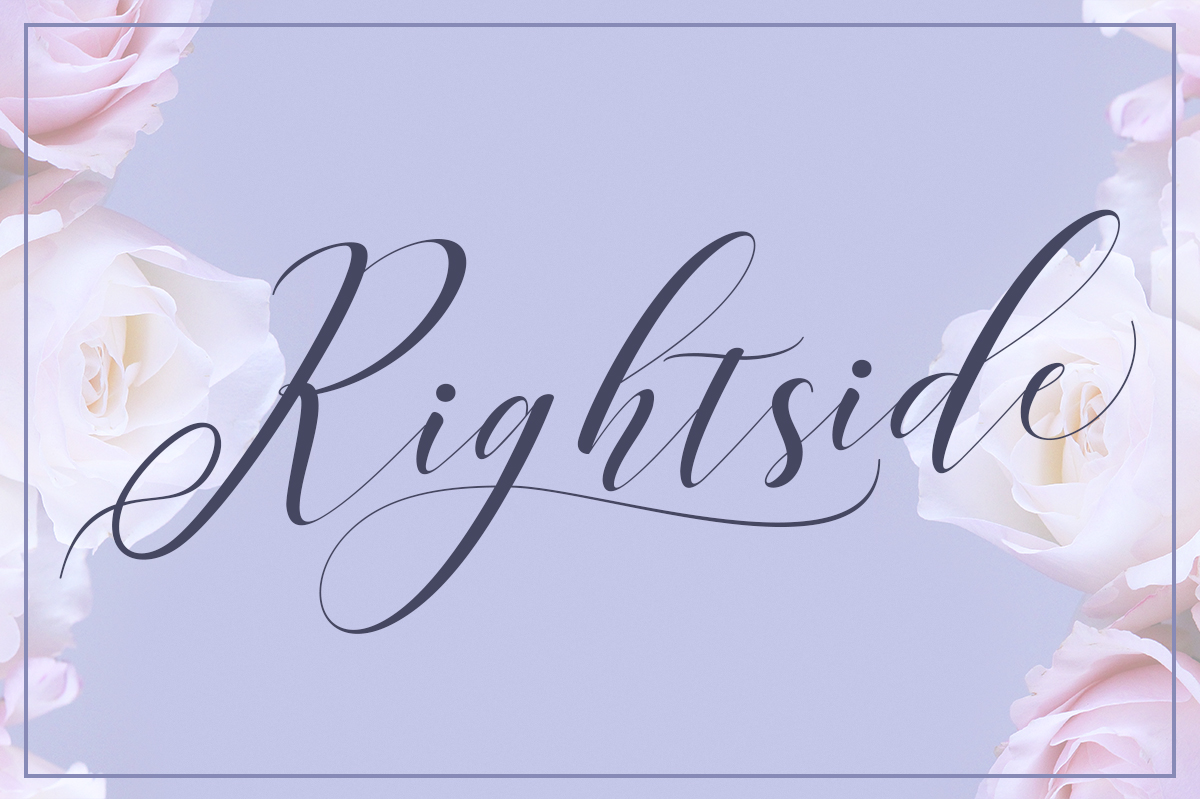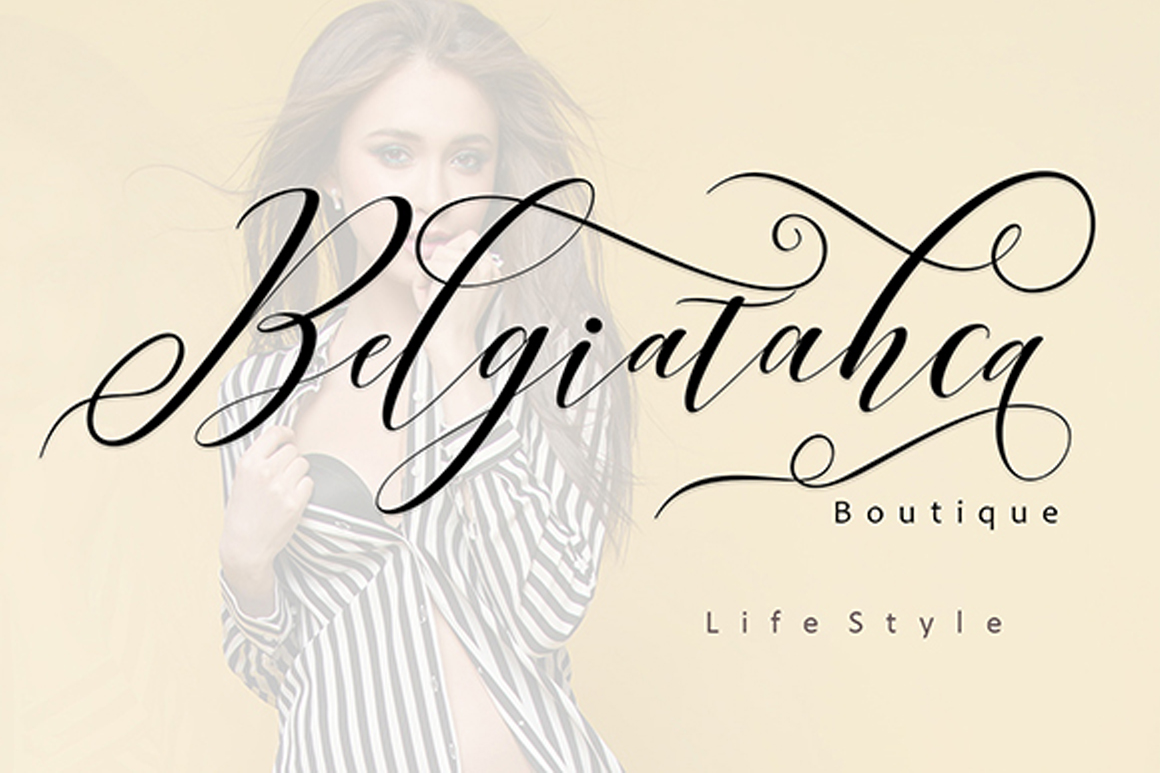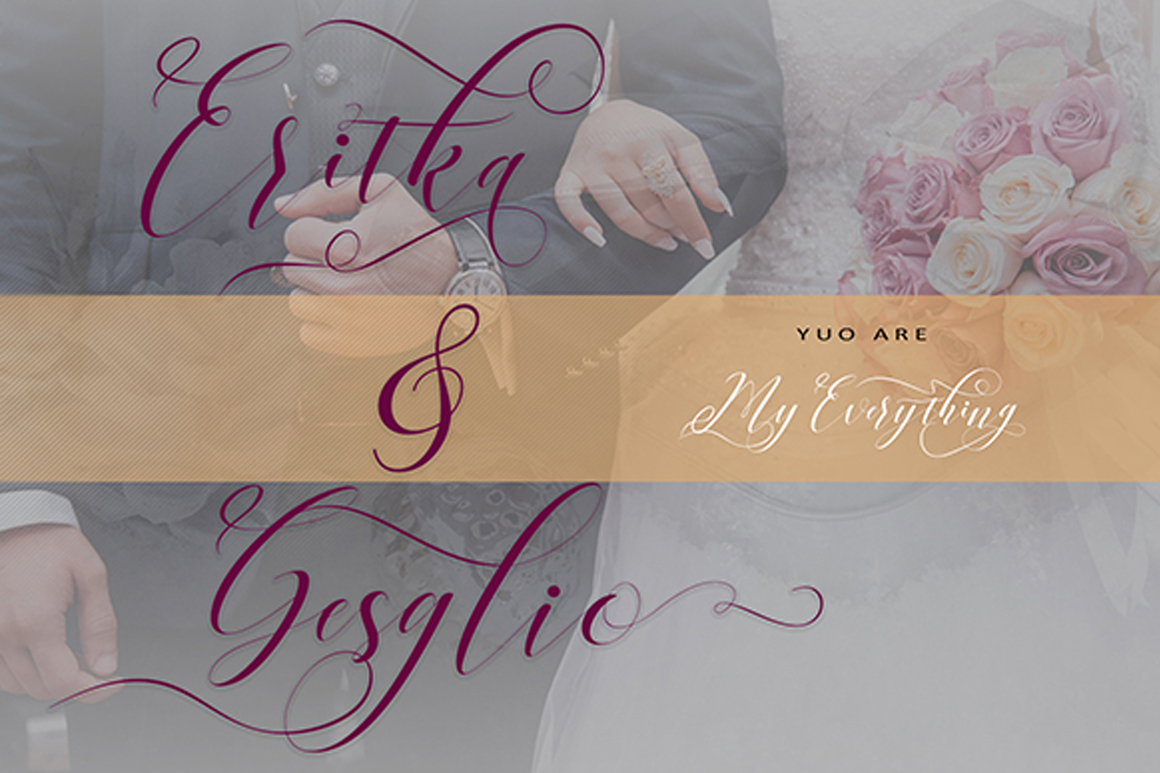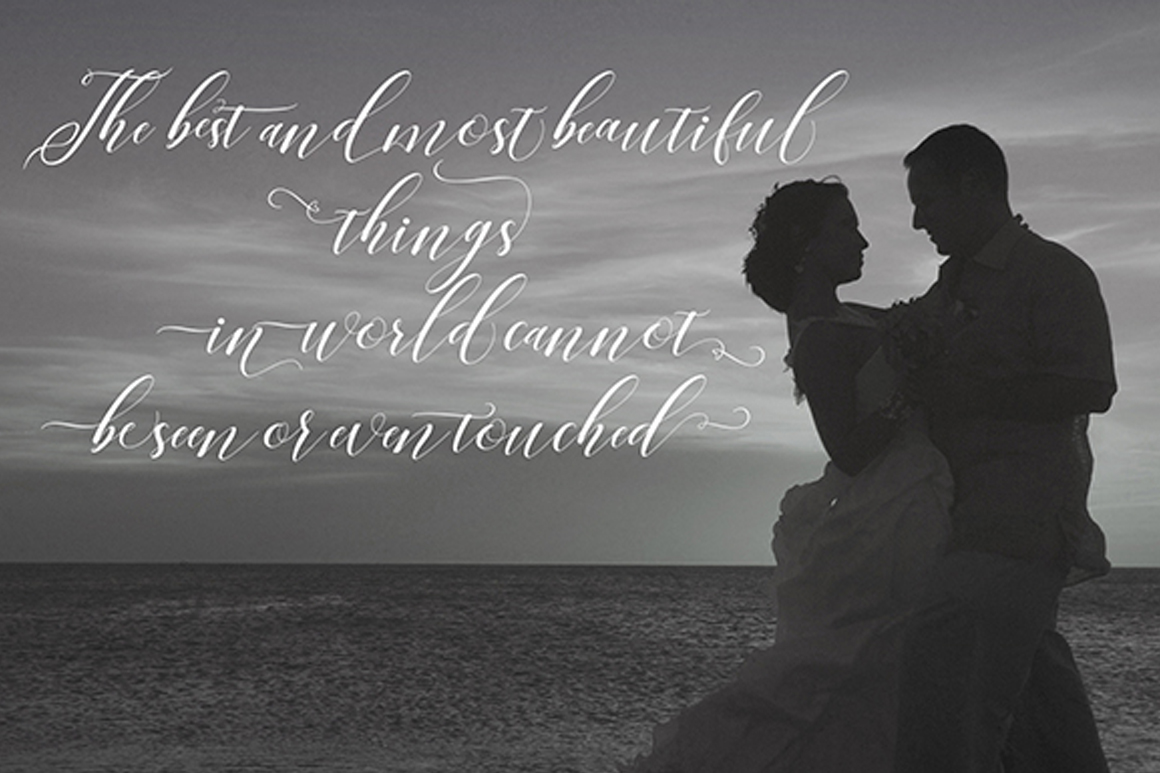
Right Side Font
About Right Side Font
Right Side is a modern form of calligraphy, with a high contrast stroke exemplifying the ups and downs of each character. Flourished and romantic, Right Side is a great font to enhance the most special of your projects.